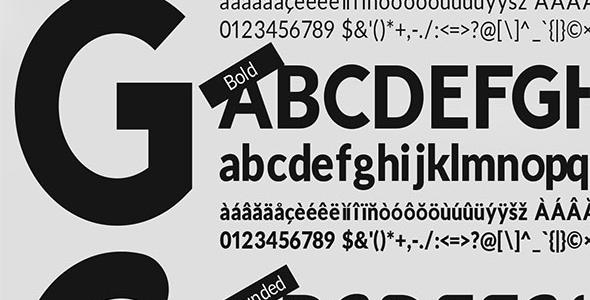
Dystopia Typeface
Dystopia is a sans serif font family, which is combining classic typography with modern grungy lettering. See All Glyphs in the 2nd Preview Image above (Click to see full image). This product include 4 fonts Dystopia Regular; Dystopia Bold; Dystopia Semirounded; Dystopia Grungy Bold; Enjoy!